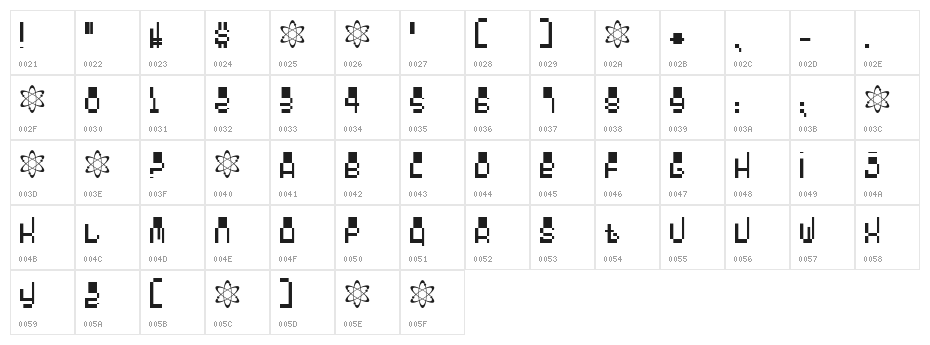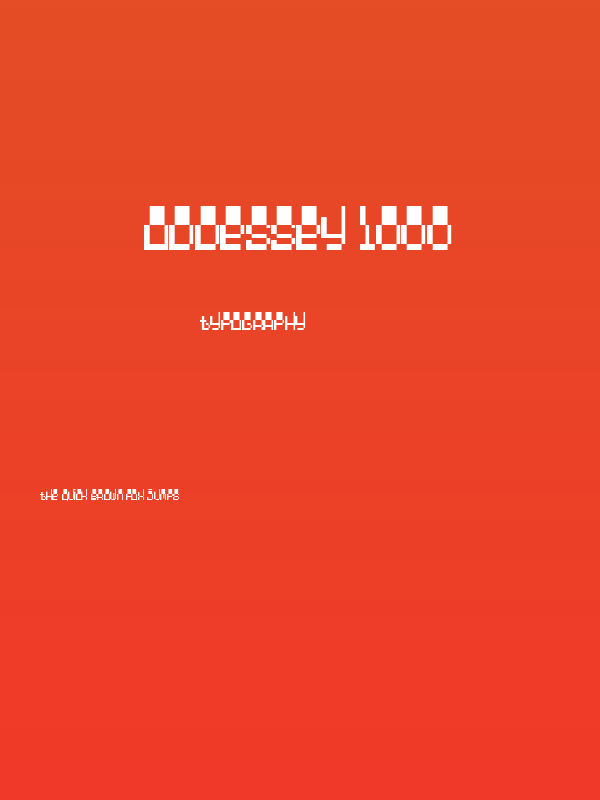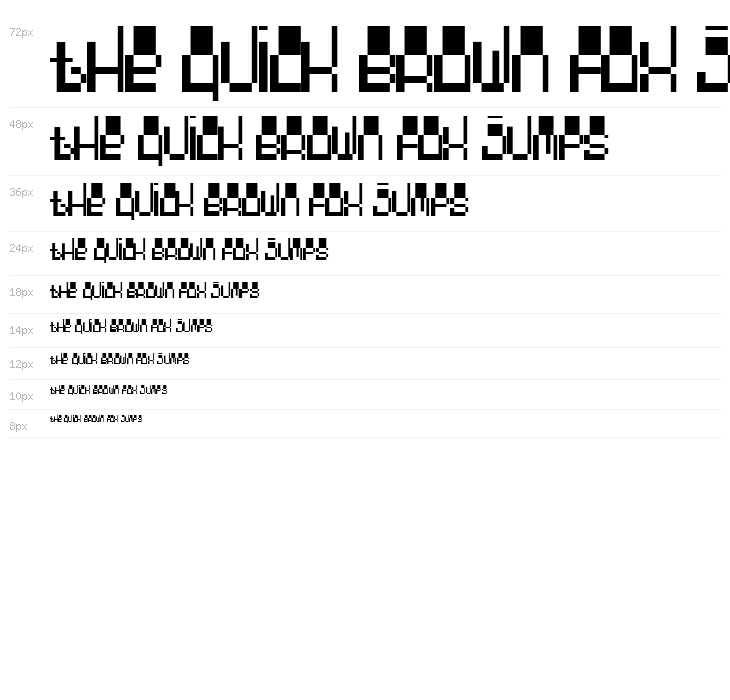
Oddessey 1000 Font
Oddessey 1000 Description
This font features a highly geometric and pixelated design, reminiscent of early digital or arcade-style typography. Each character is composed of square and rectangular blocks, creating a distinct, grid-like appearance. The uppercase and lowercase letters maintain a consistent height, contributing to a uniform look. The numbers and special characters follow the same blocky style, ensuring cohesion across all glyphs. This font's unique structure gives it a futuristic and retro vibe simultaneously, making it stand out in digital and creative projects.
ODDESSEY-1000 UPPERCASE
ODDESSEY-1000 LOWERCASE
ODDESSEY-1000 OTHER CHARS
| Overall Style | Retro, Futuristic |
| Use Case | Logos, Headlines, Digital Art |
| Proposed Projects | Ideal for video game design, tech-themed posters, digital art projects, and retro-style branding. |